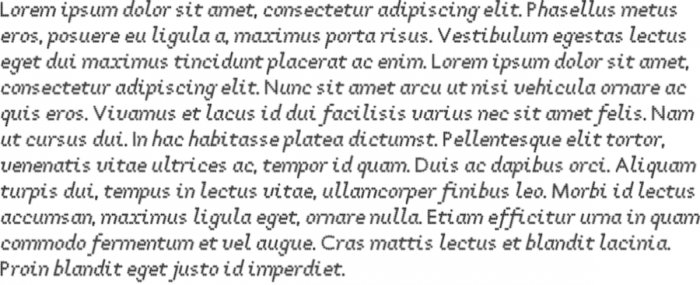
it looks nice but kinda weird when upper and lower used together
It is inspired by Italics from the Renaissance who used straight capitals.
Nicer than my dots, for sure.